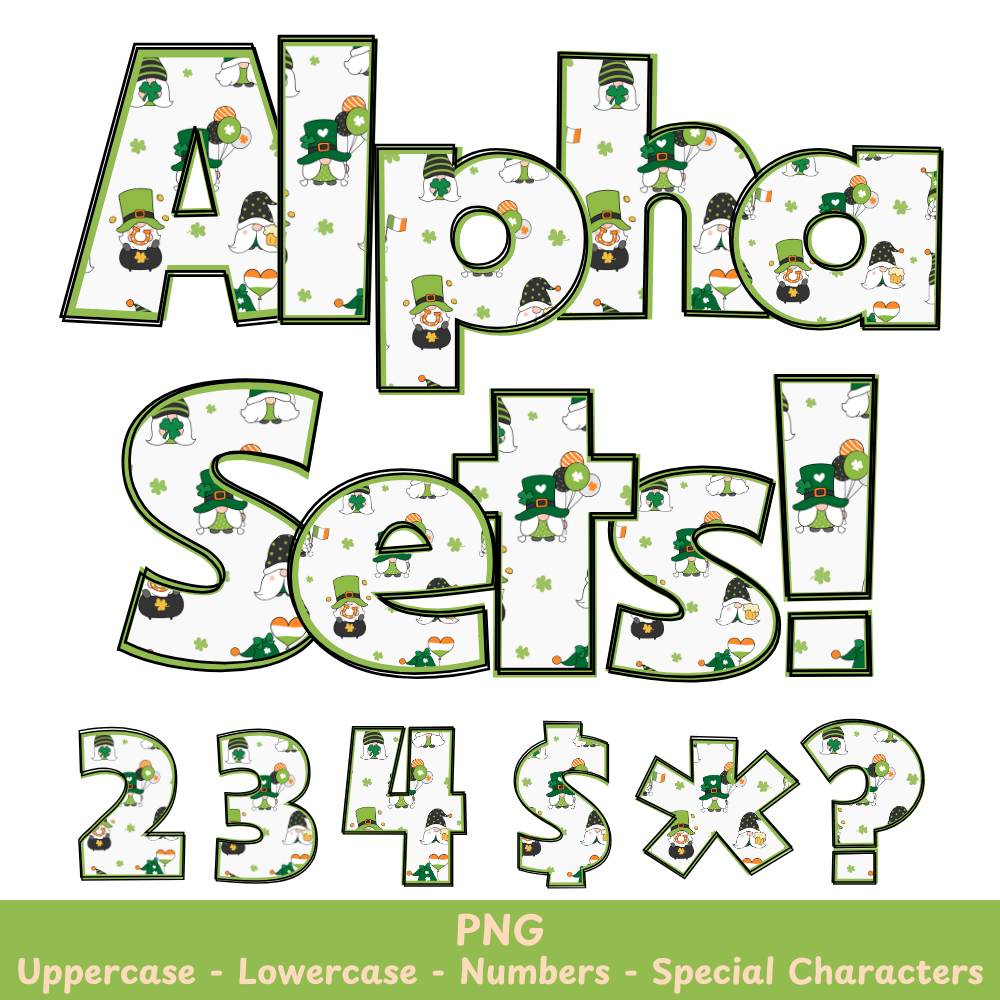
White St. Patrick's Day Gnome PNG Font
White St. Patrick's Day Alpha Set PNG Font Pack
Create festive designs with ease using our White St. Patrick's Day Gnome PNG Font. Perfect for crafts, sublimation, and more, this font adds a touch of Irish charm to your projects.